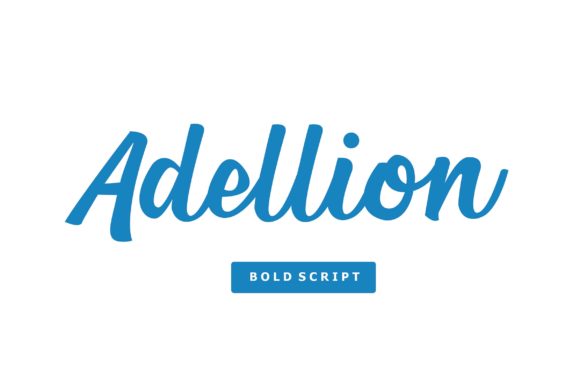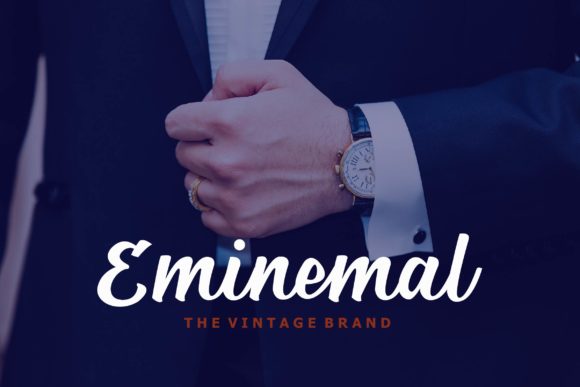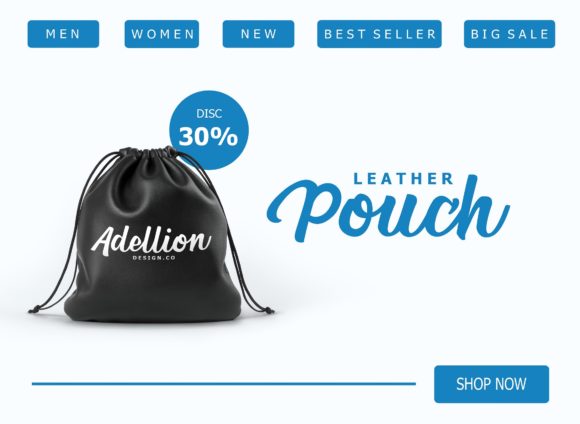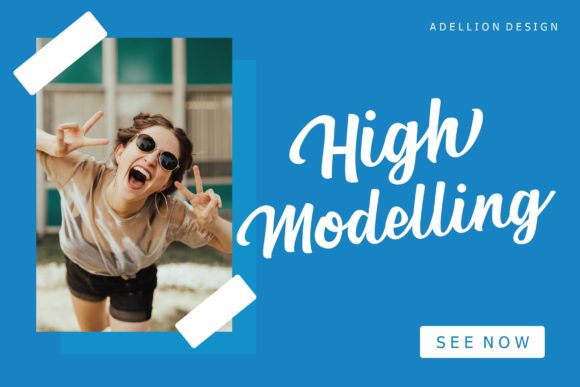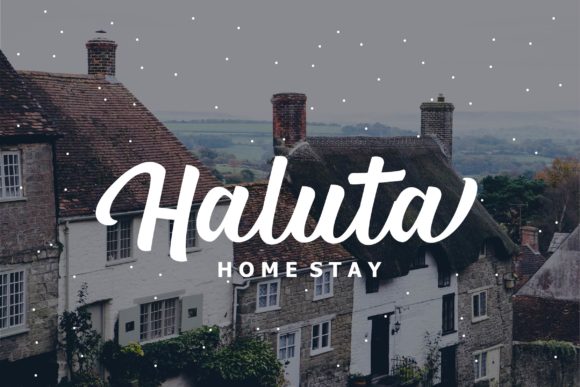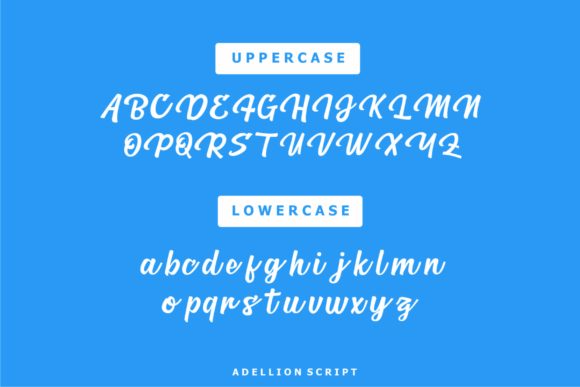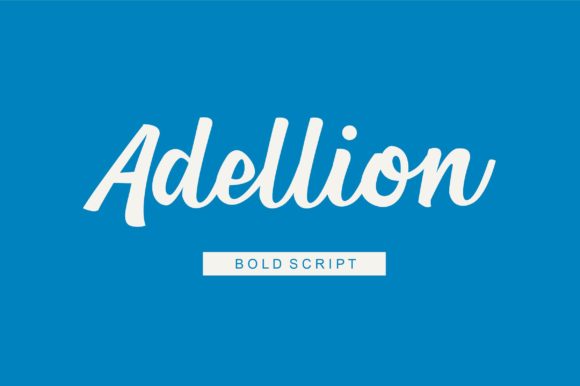
Introducing Adellion Font: Elevate Your Designs with a Bold and Unique Style
Are you tired of using the same old fonts in your designs? Look no further than Adellion Font, a game-changing typeface that will take your creative projects to the next level. With its bold and unique style, Adellion Font is the perfect choice for designers and crafters who want to make a statement.
The Story Behind Adellion Font
Adellion Font is more than just a font – it’s a design experience. Crafted with precision and passion, this font is designed to help you create stunning visuals that capture attention and leave a lasting impression. Whether you’re working on a branding project, a marketing campaign, or a personal craft, Adellion Font is the perfect tool to bring your ideas to life.
What Makes Adellion Font So Special?
So, what sets Adellion Font apart from other fonts out there? Here are just a few of its unique features:
- Bold and Eye-Catching: Adellion Font is designed to make a statement. Its bold and confident style ensures that your text will stand out, even in a crowded design landscape.
- Unique Style: With its distinctive letterforms and carefully crafted curves, Adellion Font has a one-of-a-kind style that’s sure to set your designs apart.
- Versatile: Whether you’re designing a logo, a poster, or a social media graphic, Adellion Font is the perfect choice. Its versatility ensures that it will work beautifully in a wide range of design contexts.
How to Use Adellion Font in Your Designs
Using Adellion Font in your designs is easy. Here are a few tips to get you started:
- Pair it with a Simple Background: Adellion Font works best when paired with a simple background that allows the font to take center stage. Try pairing it with a solid color or a subtle texture.
- Experiment with Colors: Adellion Font looks great in a wide range of colors. Experiment with different hues and shades to find the perfect combination for your design.
- Play with Size and Scale: Adellion Font is designed to make a statement, so don’t be afraid to play with size and scale. Use it in large sizes to create a bold impact, or in smaller sizes to add a touch of elegance to your design.
Why Designers and Crafters Love Adellion Font
Adellion Font has quickly become a favorite among designers and crafters. Here’s why:
- Easy to Read: Despite its bold style, Adellion Font is surprisingly easy to read. This makes it perfect for designs where you need to communicate a message clearly and effectively.
- Highly Versatile: Adellion Font can be used in a wide range of design contexts, from branding and marketing to crafting and DIY projects.
- Unique and Memorable: With Adellion Font, you can create designs that are truly unique and memorable. This is perfect for designers and crafters who want to stand out from the crowd.
In conclusion, Adellion Font is a bold and unique font that’s perfect for designers and crafters who want to elevate their designs. With its distinctive style, versatility, and ease of use, Adellion Font is the perfect choice for anyone looking to make a statement. So why wait? Download Adellion Font today and start creating stunning designs that capture attention and leave a lasting impression.
Key Features of Adellion Font
- Font Type: Bold, Unique
- Use Cases: Branding, Marketing, Crafting, DIY Projects
- Key Benefits: Easy to Read, Highly Versatile, Unique and Memorable